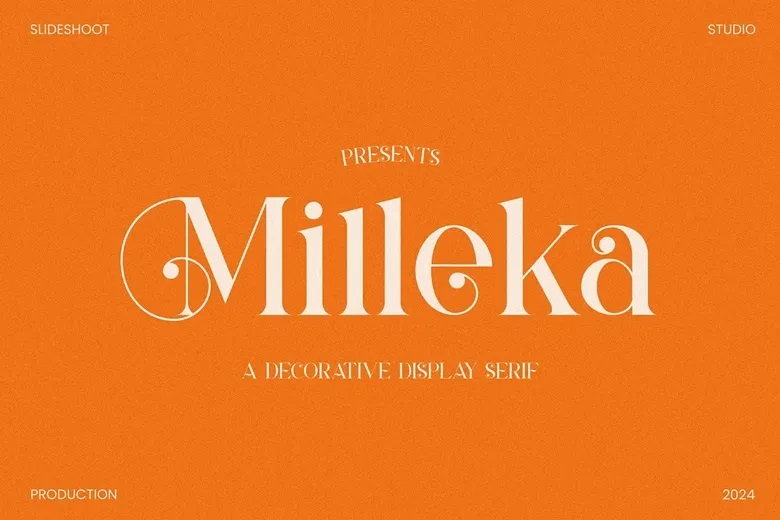
Milleka Font
Milleka is based on modern classical serif font. Precise, accurate, proportionate, harmonious, polite, and distinctive. Gathers attention and brings in more aesthetic to an art. Ideal with invitation card designs, company logos, movie title, movie name, business card, book title, brand name, piece and many more designs. This font will well complement any project because of its peculiar changes and ligatures.
Milleka Serif Font